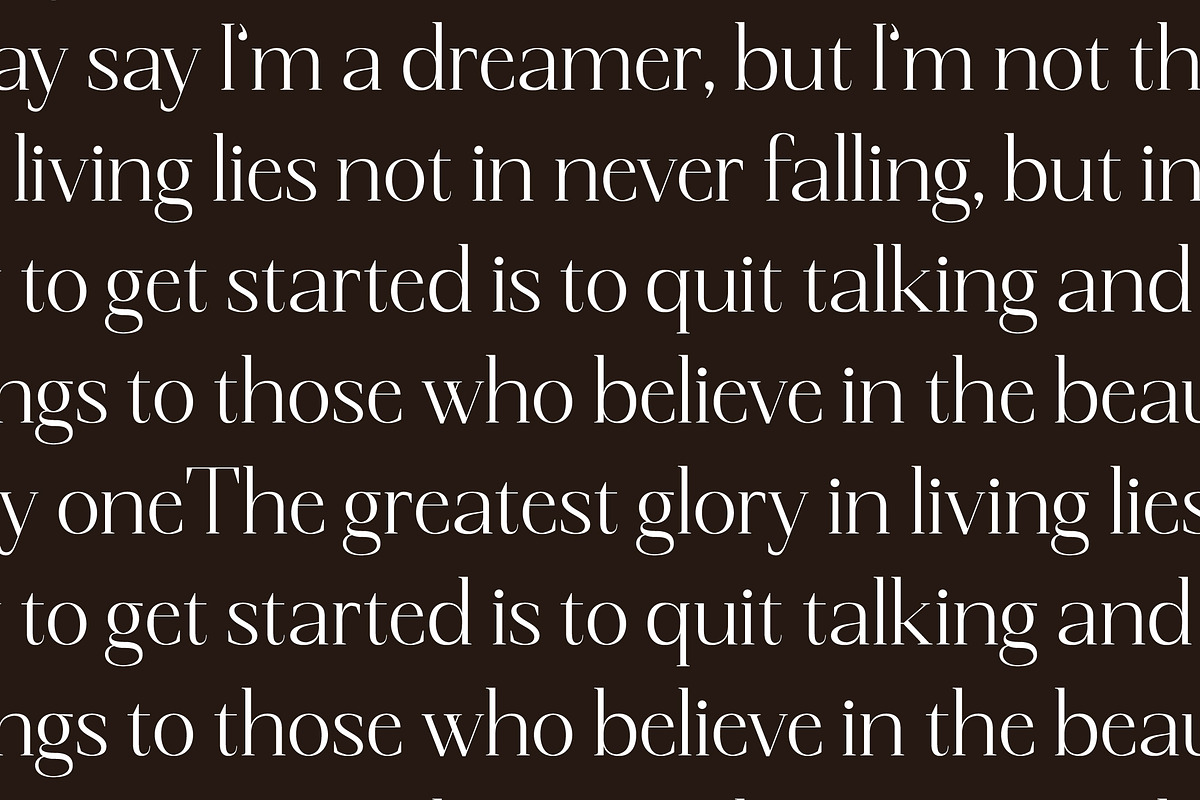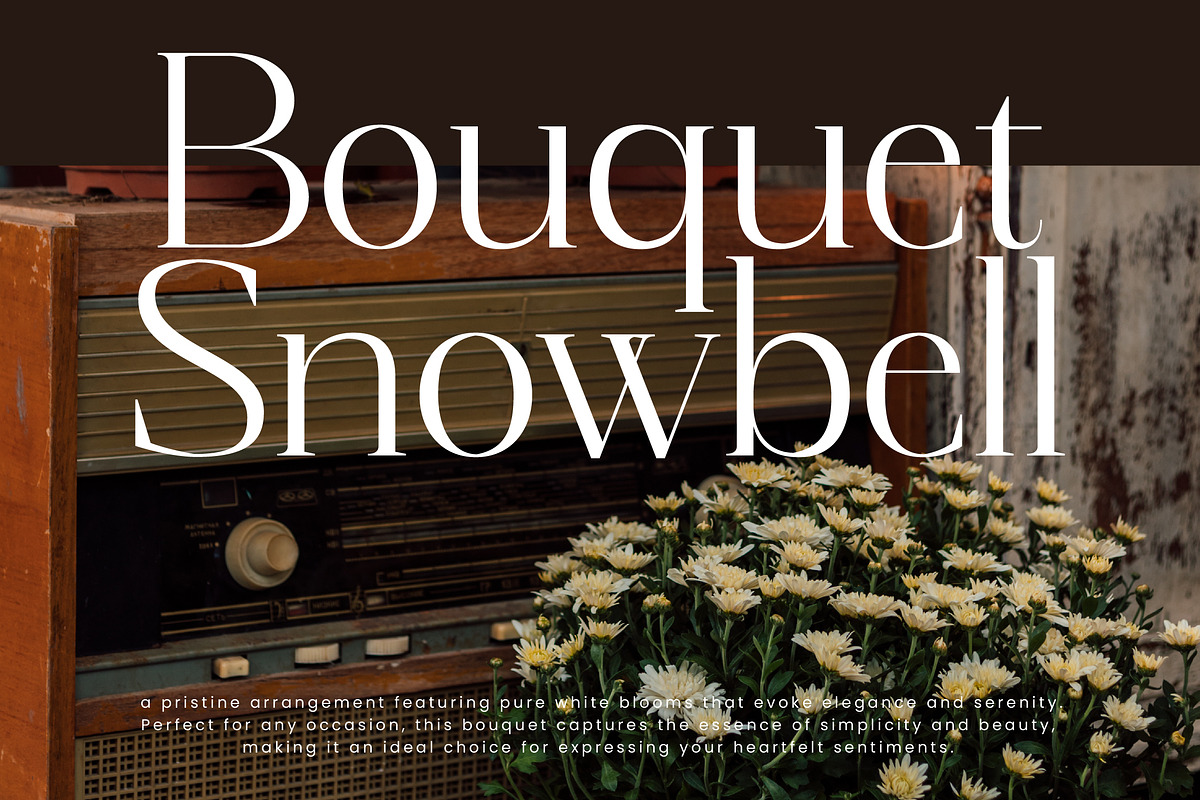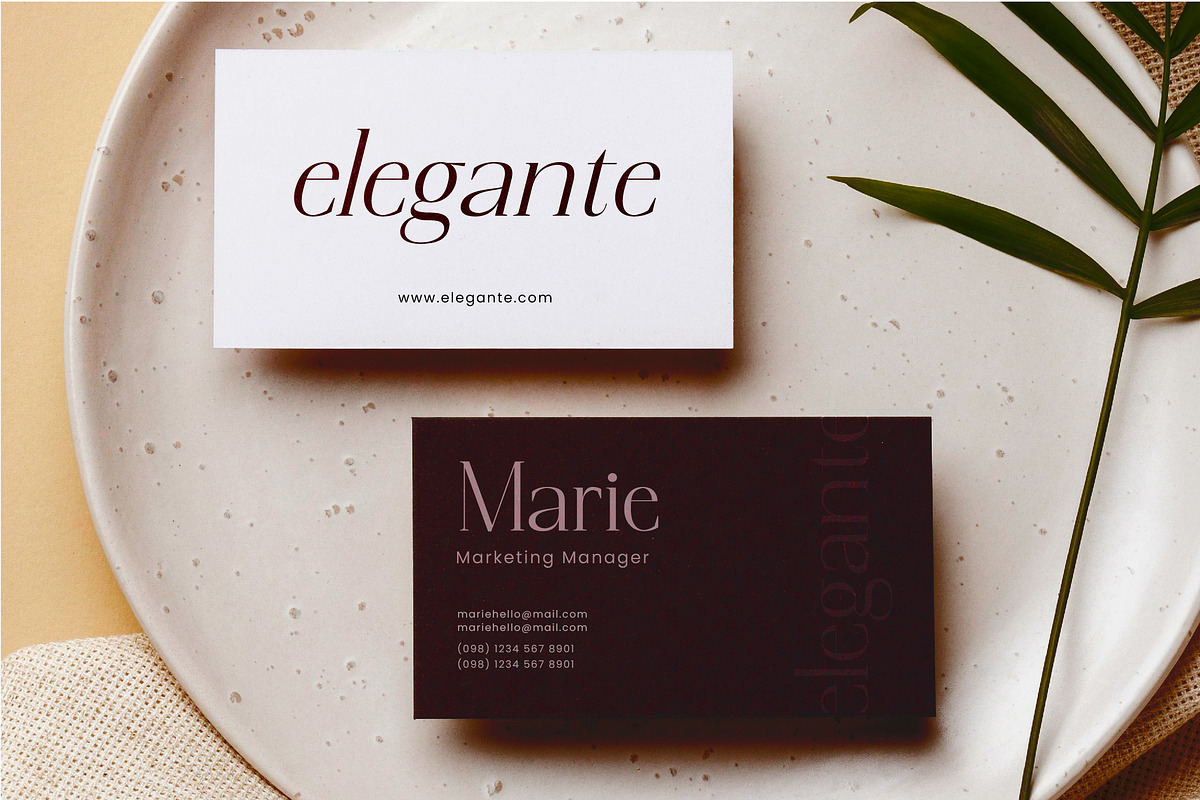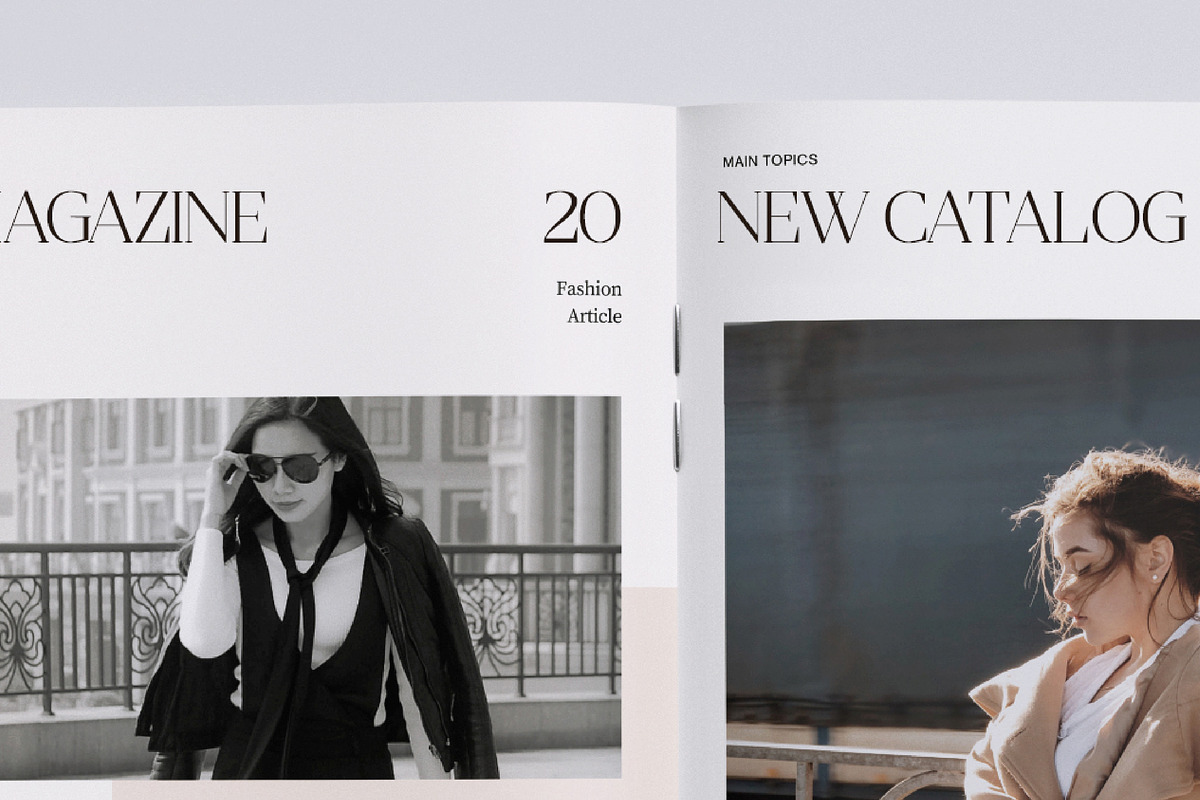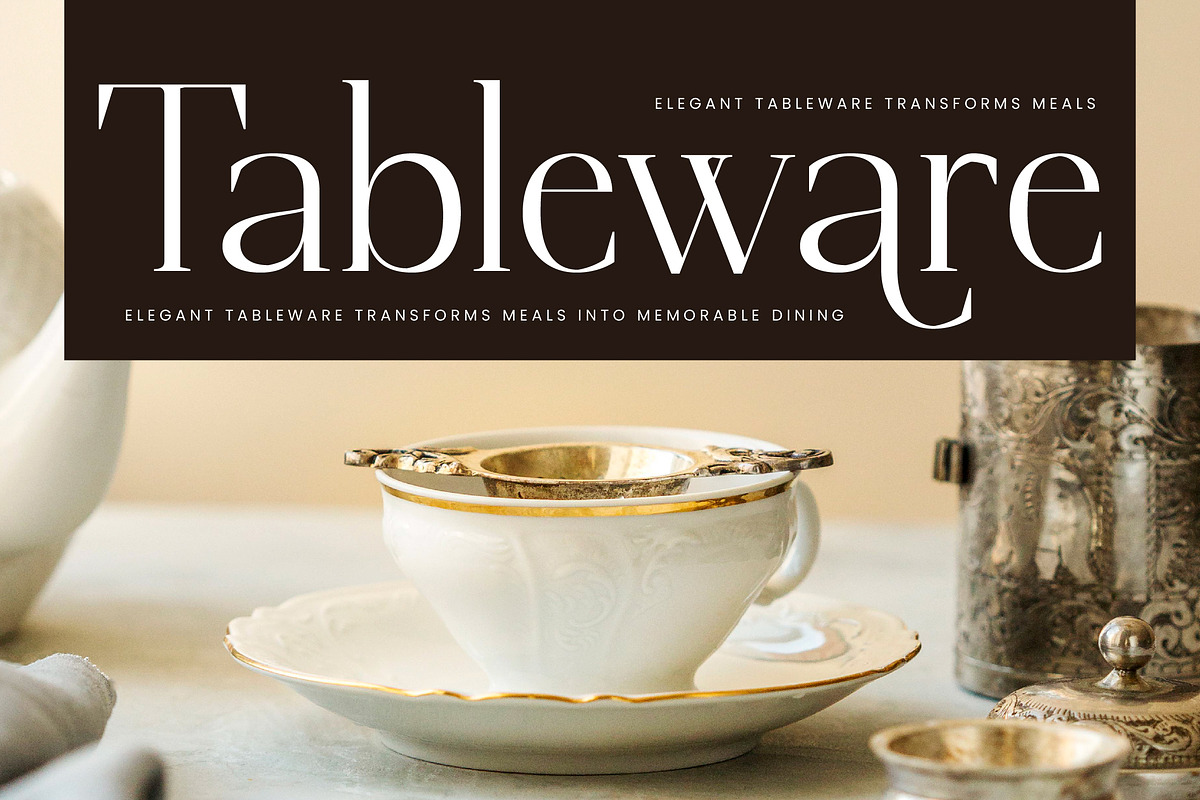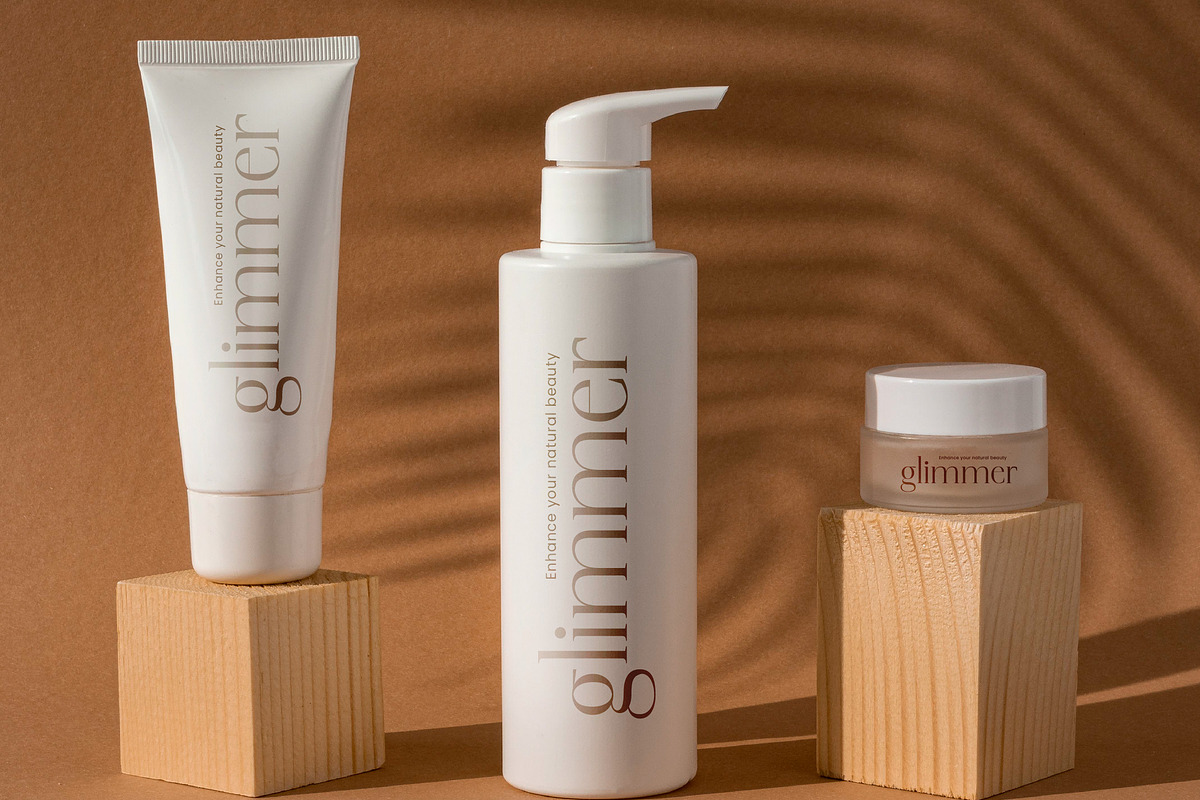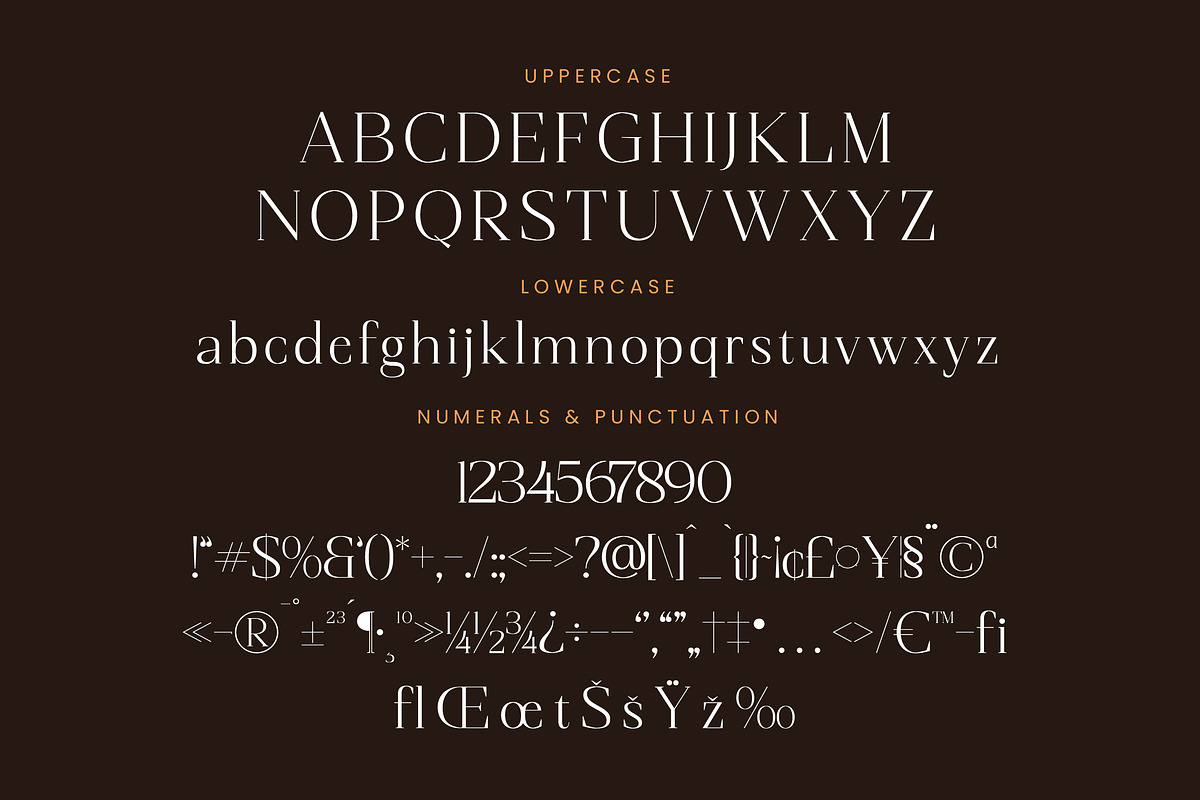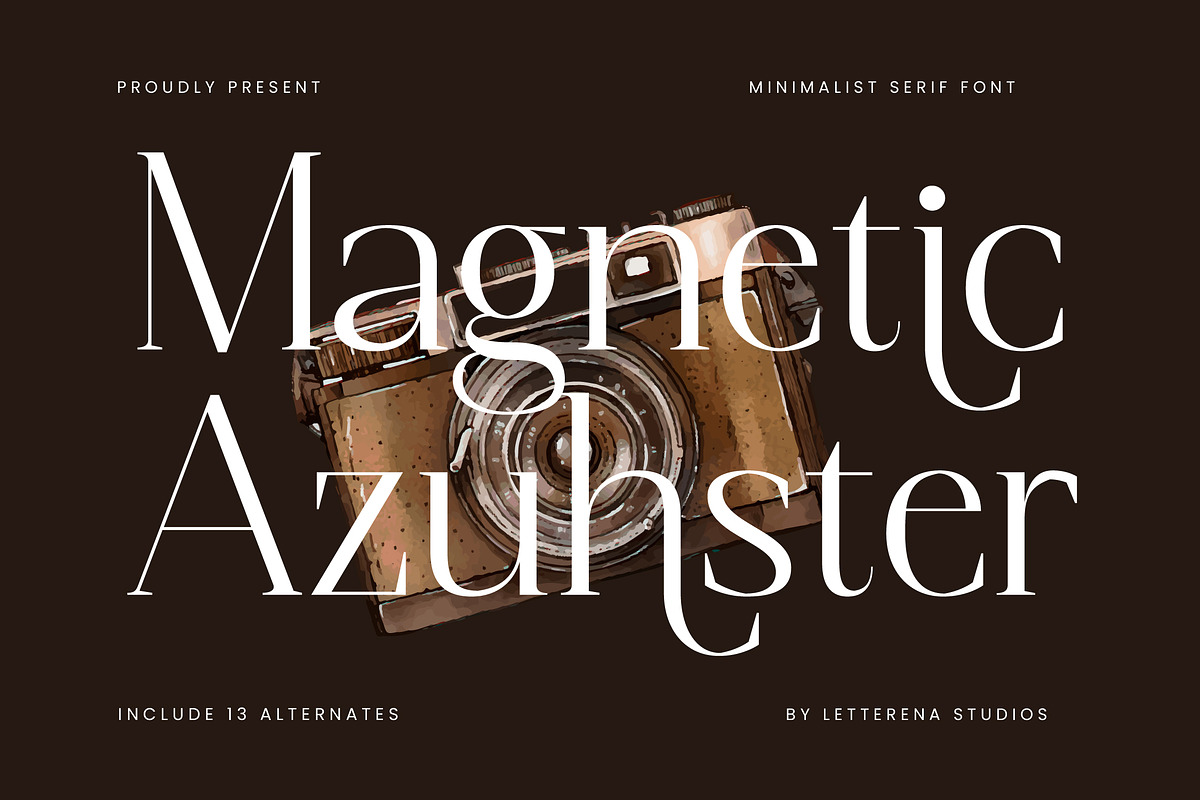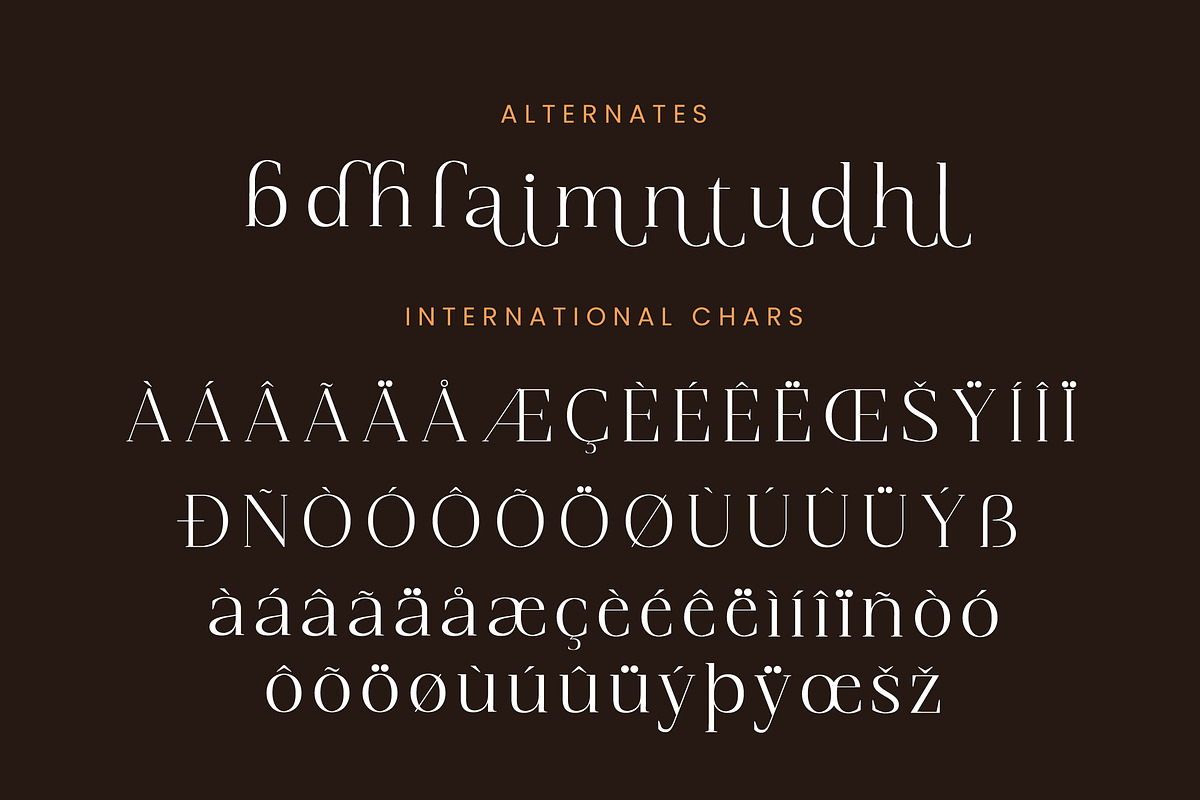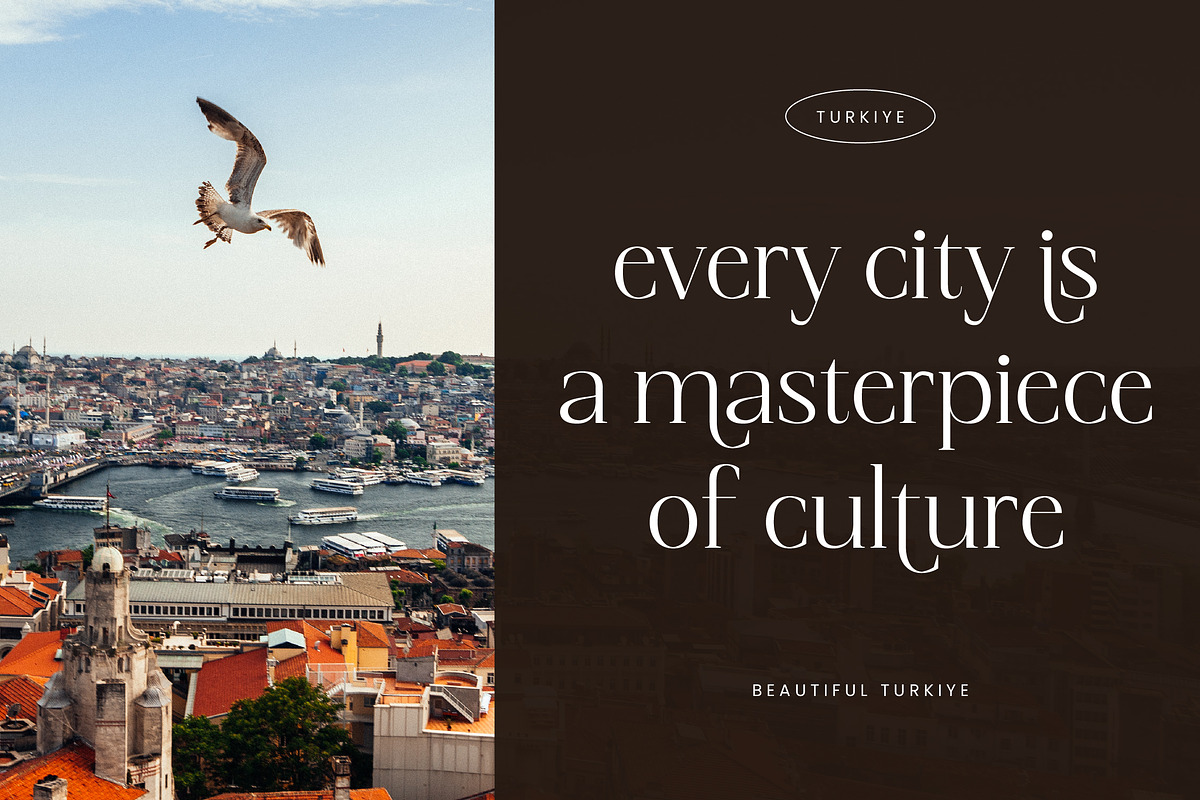
Magnetic Azuhster Minimalist Serif
Magnetic Azuhster – Minimalist Serif Font , from Letterena, is a Luxury Serif font, suitable for any projects such as: logos, branding projects, homeware designs, product packaging, mugs, quotes, posters, shopping bags, t-shirts, book covers, name card, invitation cards, greeting cards, label, photography, watermark, special events, and all your other luxury and beautiful projects that need a Luxury Serif taste.